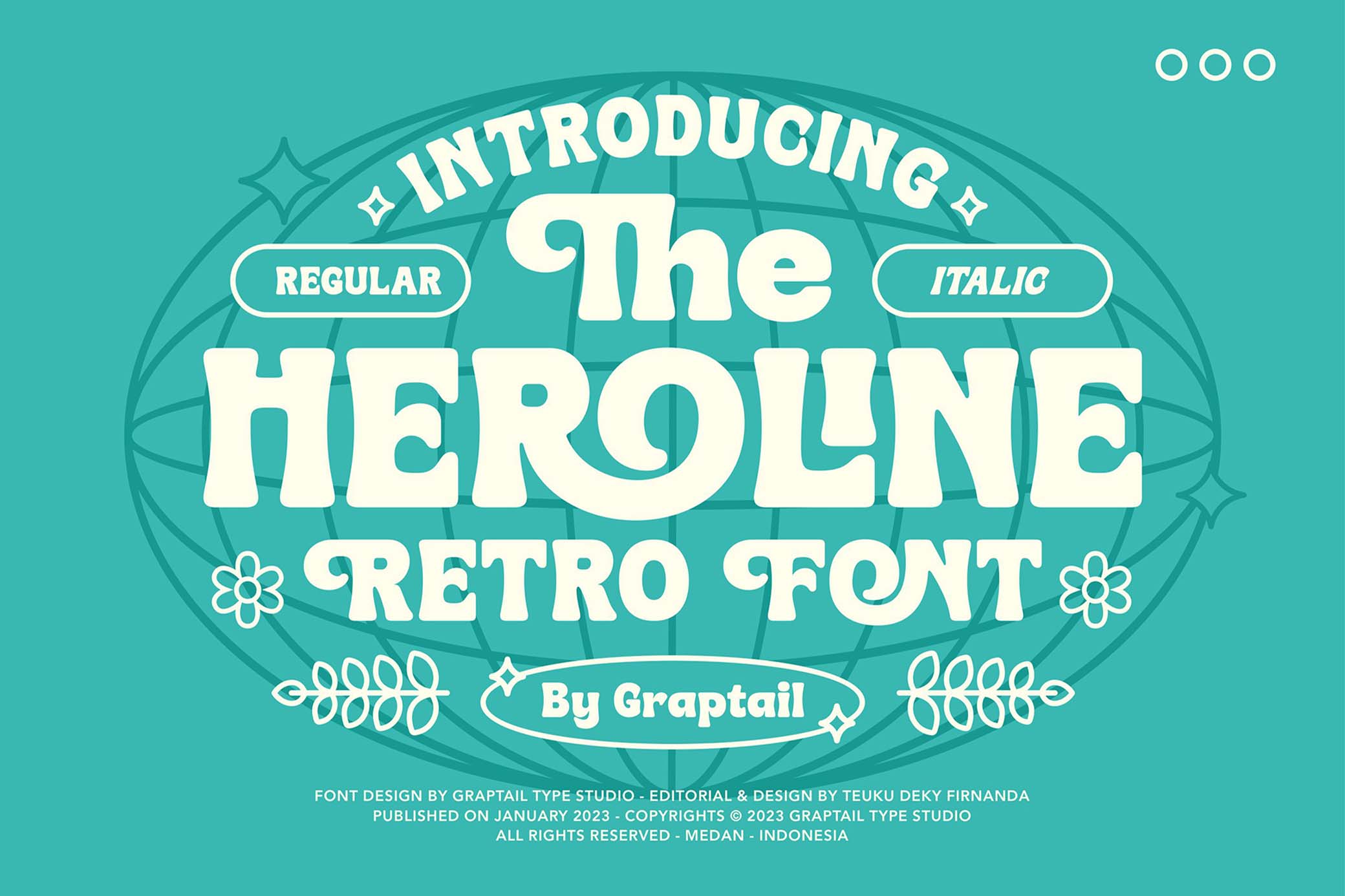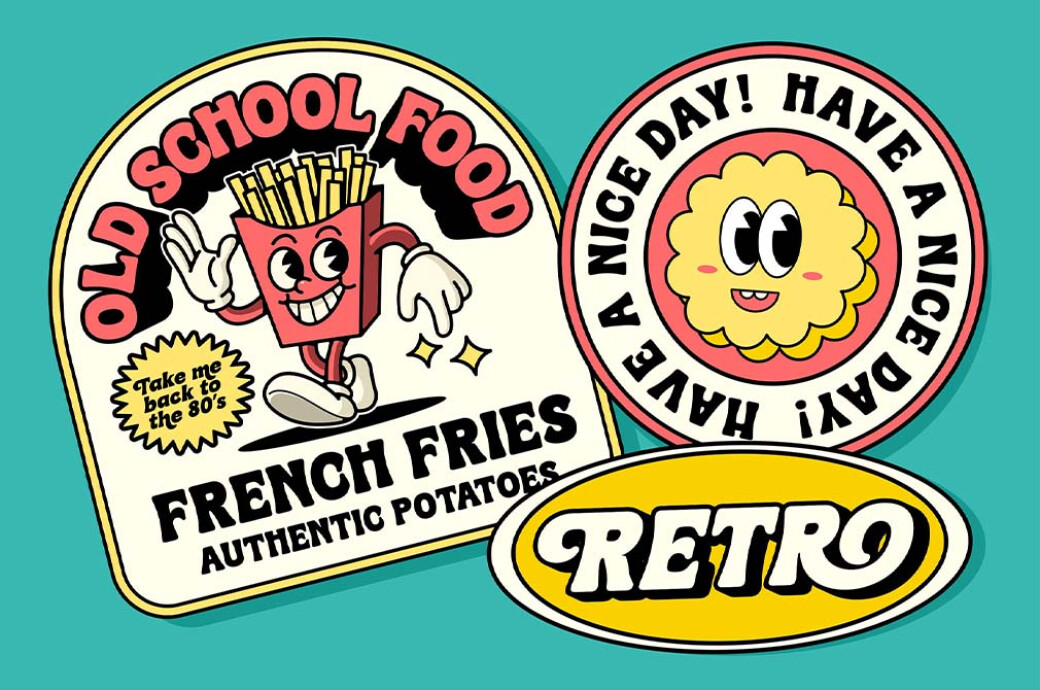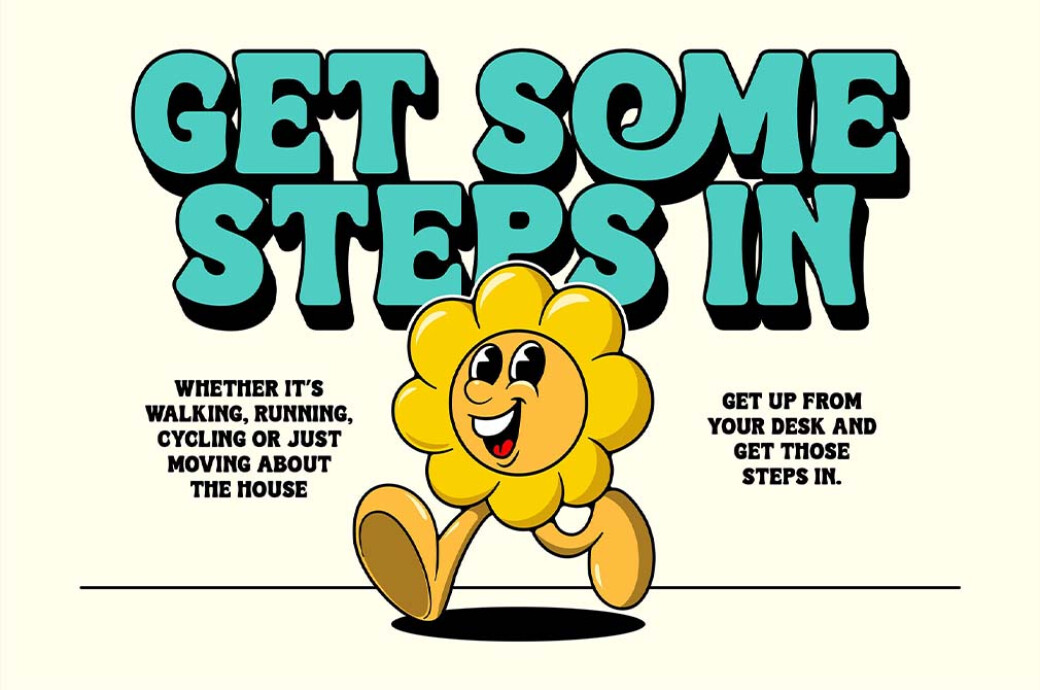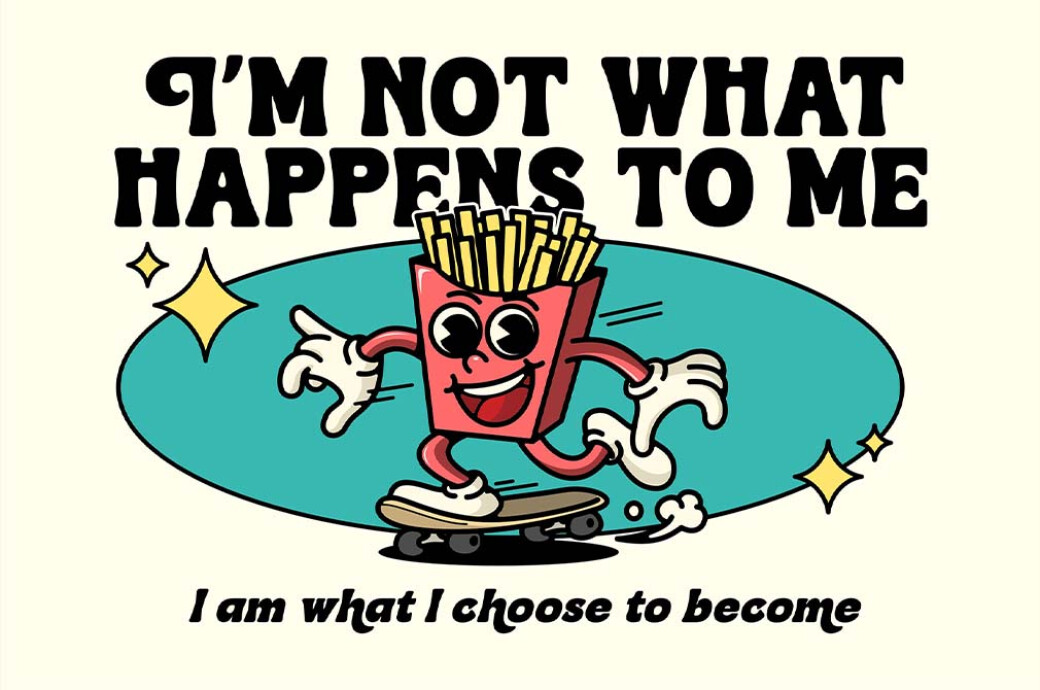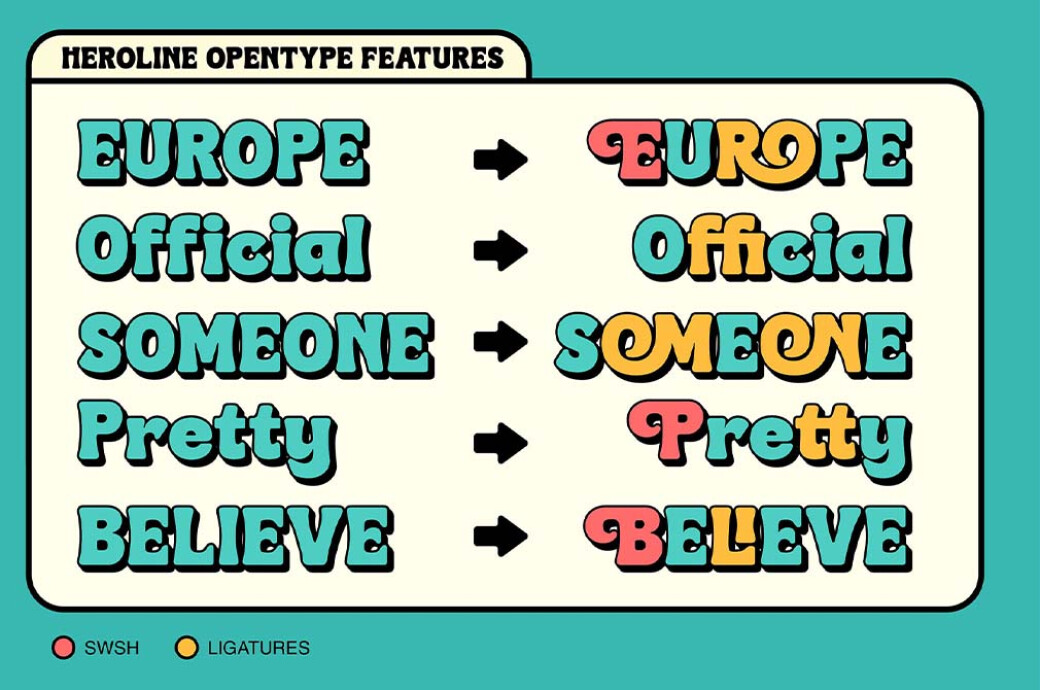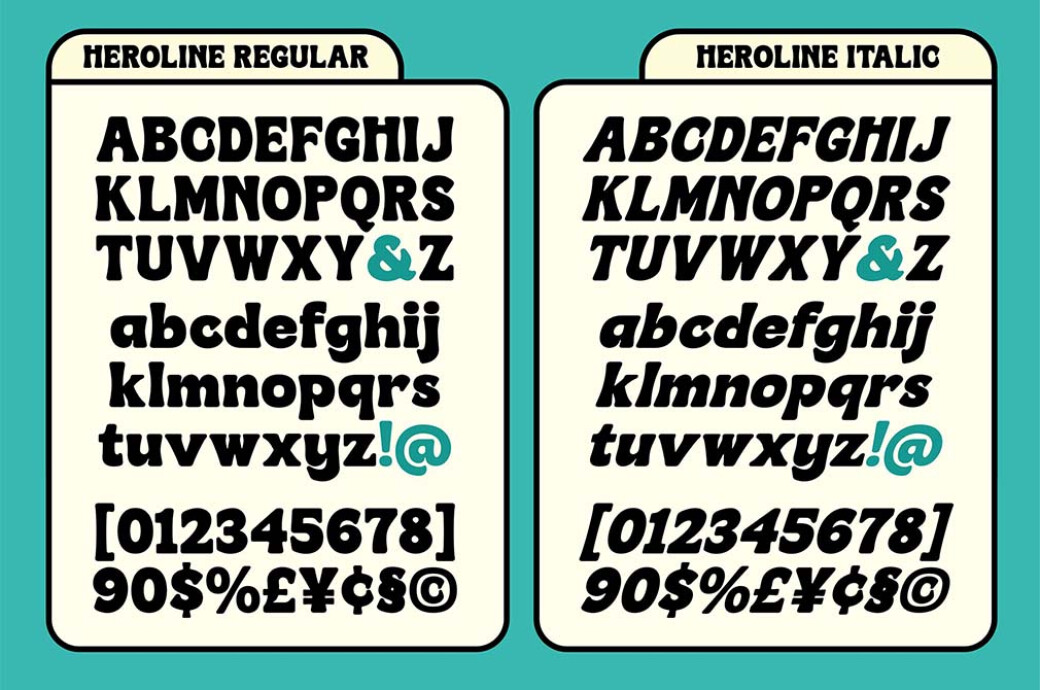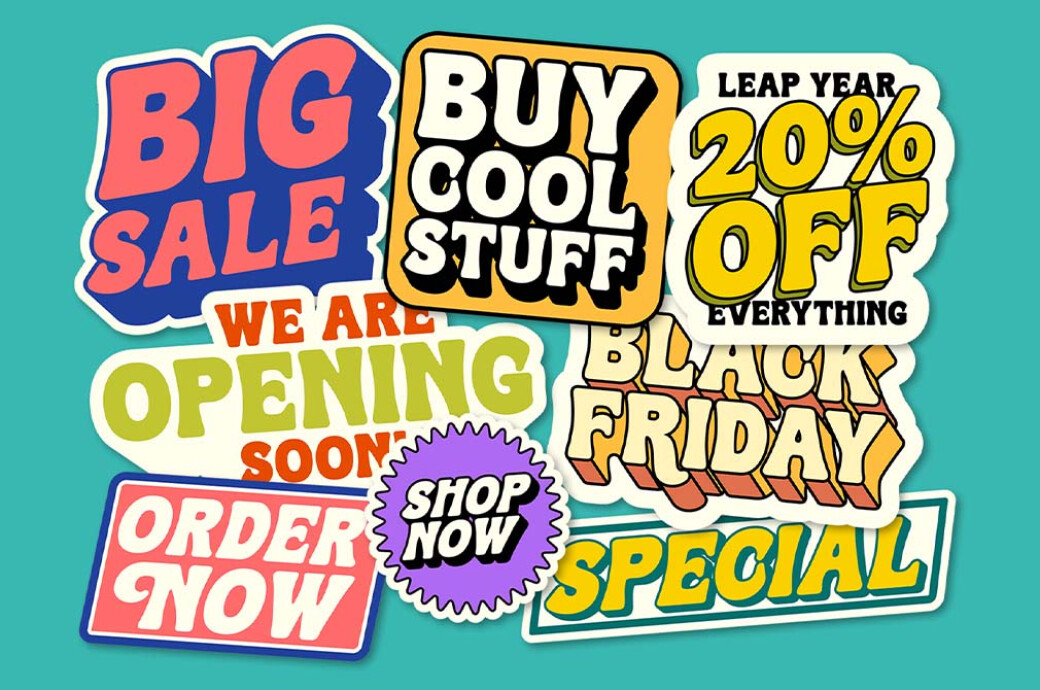
Heroline — Retro Font
What font would the one get after they blended the iconic 50s and 60s movie posters? Probably something like Heroline: a solid display with curved elements and a unique letter shape.
It's your turn to release a movie poster that'll make history. Browse our library of add-ons for the image and feature Heroline for a distinct retro look. This font has it all: a variety of alternative characters and ligatures, plus a complete character set. If it's not a movie poster, you can design any piece generously sprinkled with nostalgia: t-shirts, packaging, stickers, street food branding, and more.